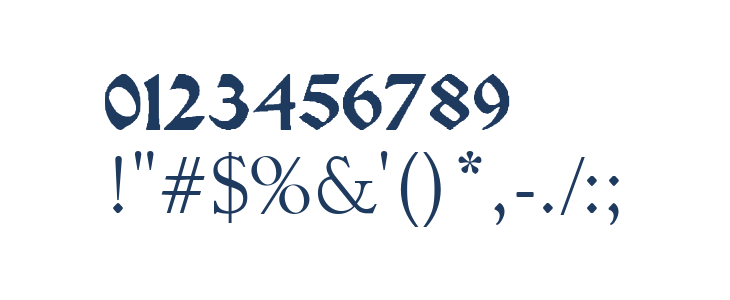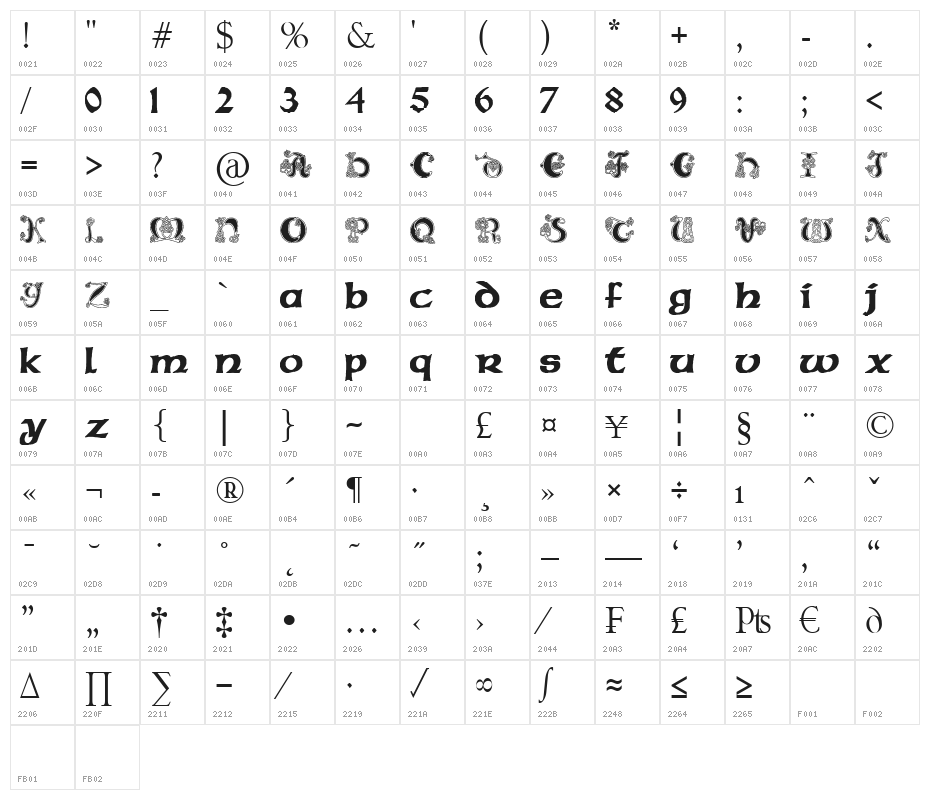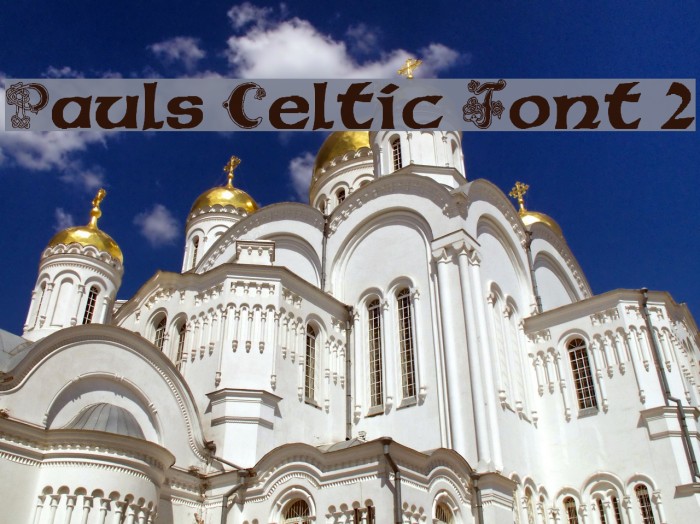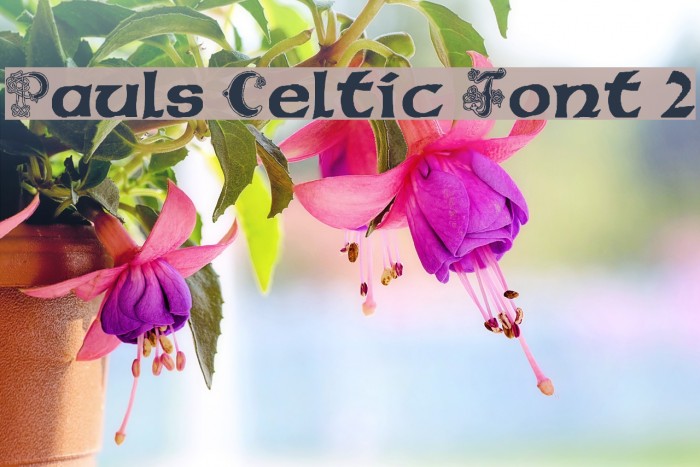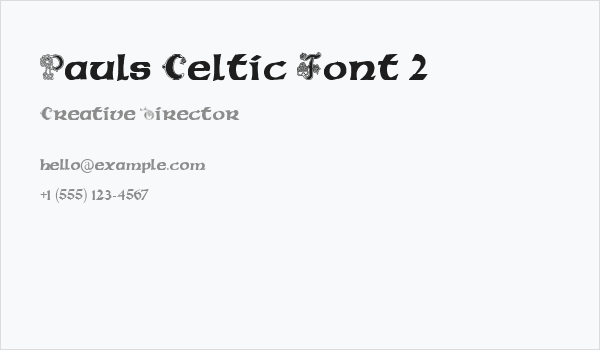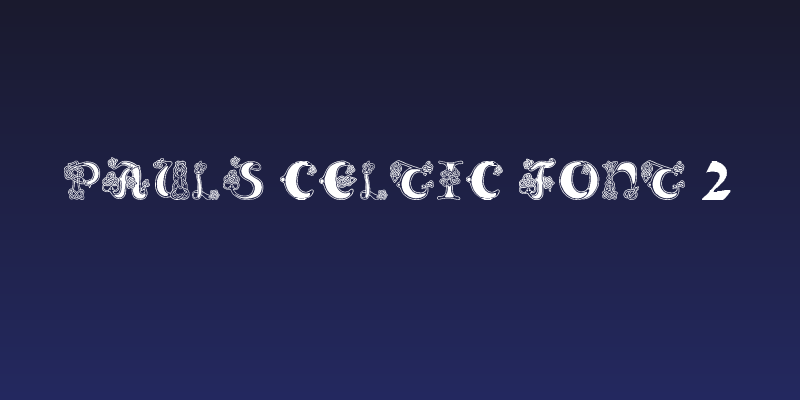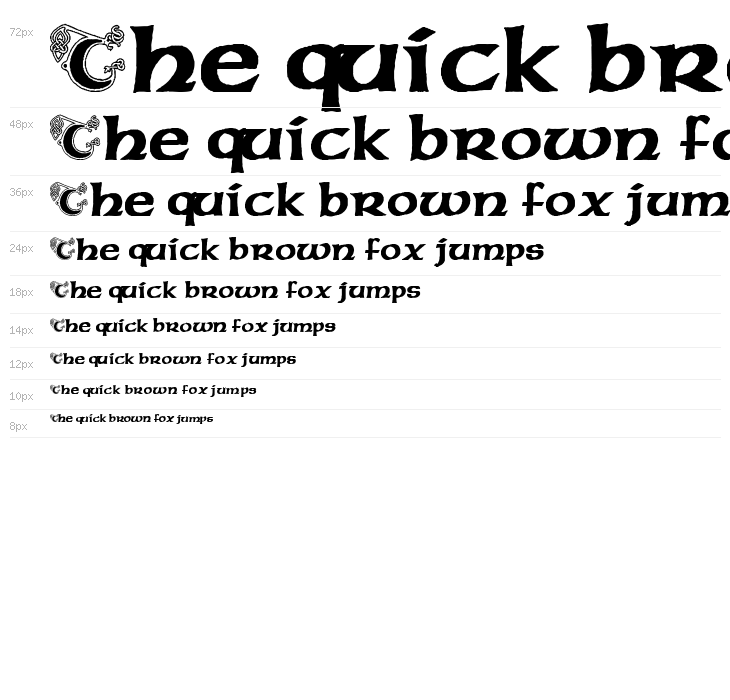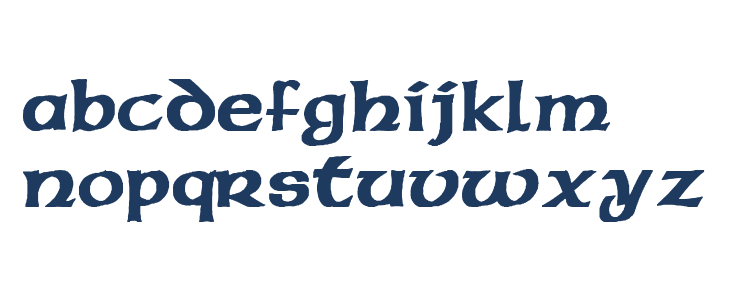
Pauls Celtic Font 2 Font
Pauls Celtic Font 2 Description
This font features a distinct Celtic-inspired design with intricate detailing in the uppercase letters, reminiscent of ancient manuscripts. The lowercase letters maintain a bold and slightly angular appearance, offering a strong contrast to the ornate uppercase. The numerals are bold and clear, ensuring readability while maintaining the overall style. Special characters are included, each with unique embellishments that enhance the font's decorative nature. This font is ideal for projects that require a historical or cultural touch, such as themed events, branding, or artistic designs.
| Use Case | Logos, Headlines, Artistic designs |
| Proposed Projects | Ideal for historical-themed events, cultural branding, artistic designs, and decorative purposes. |